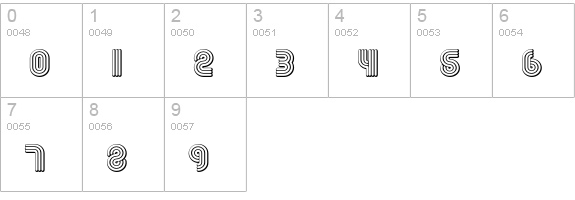
FGrooveSeventyNine Font Details
Introducing FGrooveSeventyNine font, a stylish and modern typeface that exudes confidence and creativity. This versatile font is perfect for a wide range of design projects, from branding to editorial work. With its sleek lines and bold presence, FGrooveSeventyNine is sure to make a statement. What sets FGrooveSeventyNine apart is not only its striking design but also the fact that it is available for free download at FontsMarket.com. This means that you can easily access this stunning font and use it in your projects without any cost. Whether you're working on a logo, poster, website, or any other design, FGrooveSeventyNine is a fantastic choice that will elevate your work to the next level. Download it today and let your creativity run wild with this exceptional font.